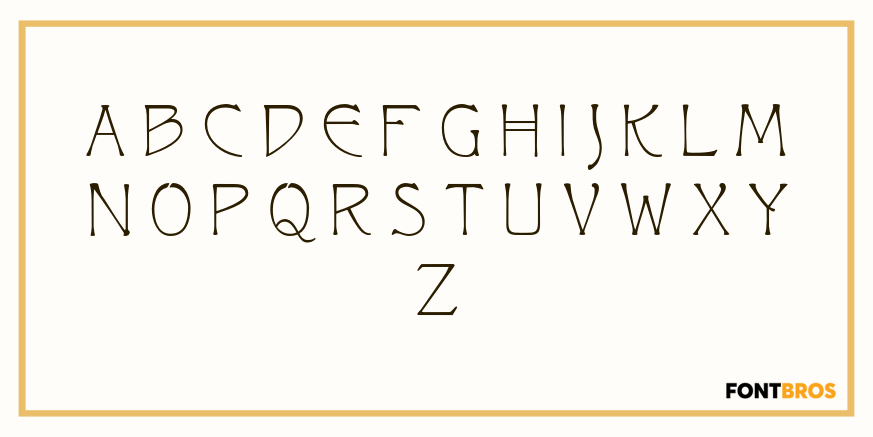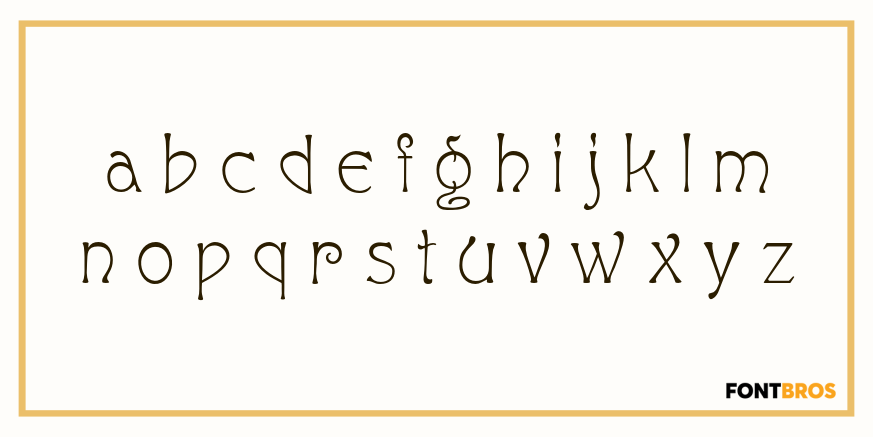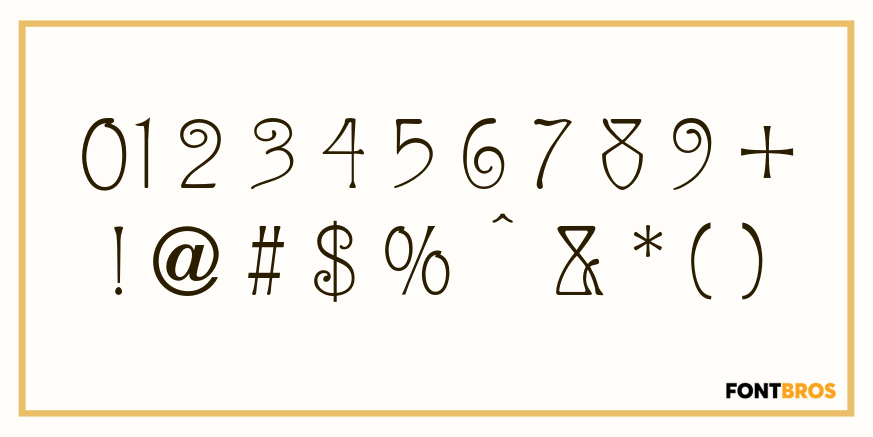
Dainty Lady
You will see this in the old type catalogs as Dainty. Late in the nineteenth century, type founders developed a number of fonts with a "pen-drawn" look. They wanted to complete with the work of the hand lettering artists who were coming into their own, thanks to the new art of photoengraving
Dainty Lady by Solotype